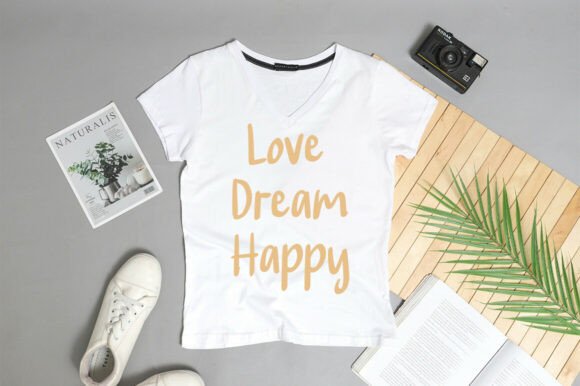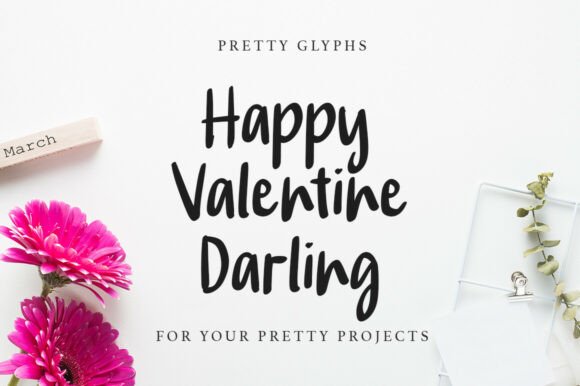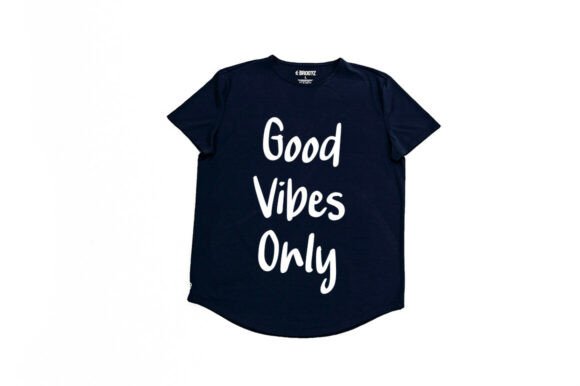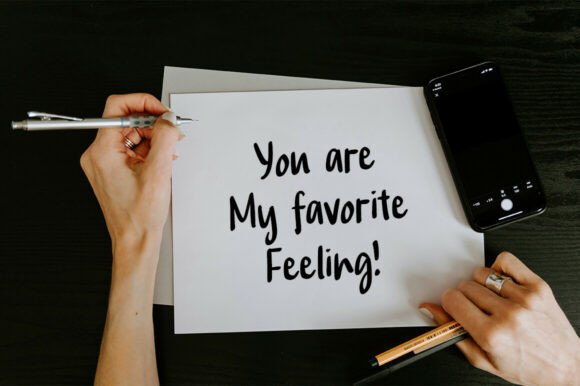
Introduction to Romance Seasons Font
Romance Seasons font is a charming and playful typeface that captures the essence of cozy moments and heartfelt messages.
This Romance Seasons typeface features soft, rounded edges and a handcrafted feel that brings an immediate sense of warmth to any project Perfect for branding that needs a personal touch, this Romance Seasons font shines when used in greeting cards, romantic book covers, or social media quotes.